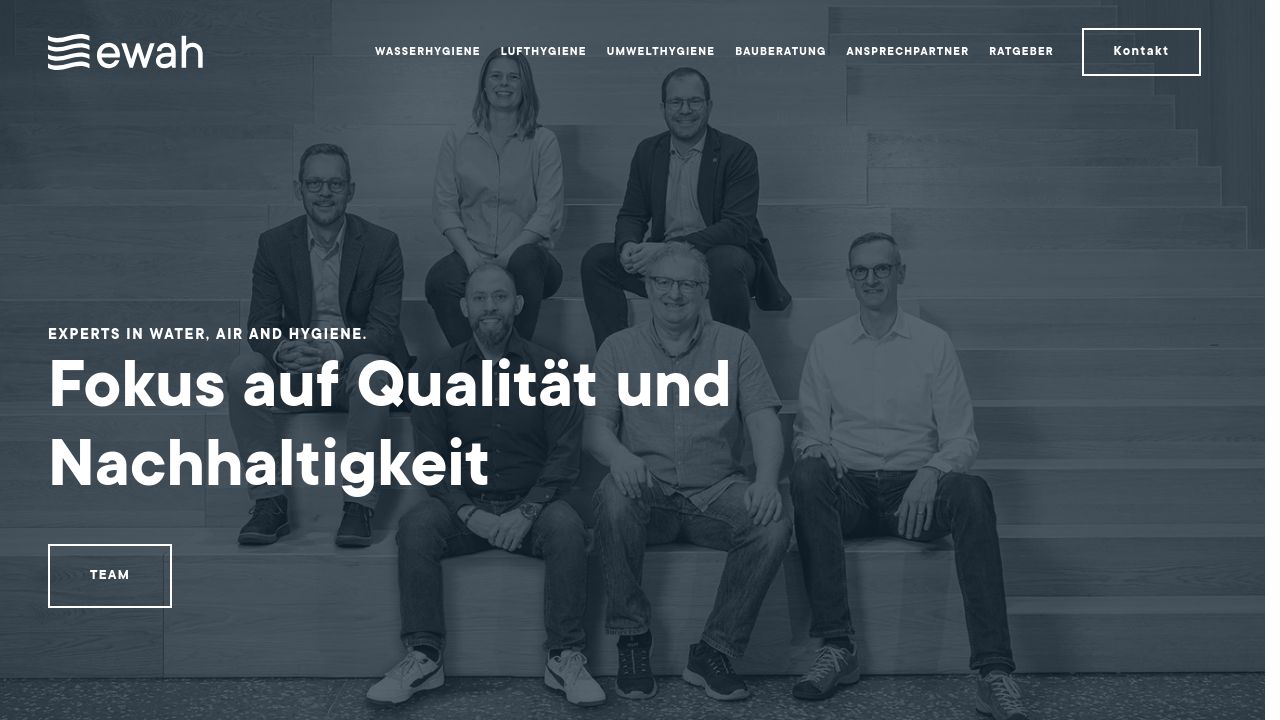
What fonts does Ewah use?
ewah.ch showcases a distinctive visual identity through its choice of fonts, including Raleway, TTCommonsClassic, and the custom swiper-icons. These fonts reflect the brand's commitment to specialized knowledge and tailored solutions in hygiene and sustainable construction concepts. By utilizing Raleway's clean lines and the geometric structure of TTCommonsClassic, ewah AG effectively communicates clarity and reliability to its audience, enhancing their engagement and trust.
What fonts are used on ewah.ch?
ewah.ch primarily uses swiper-icons, Raleway, and TTCommonsClassic. Each of these fonts contributes to the site's clear and professional aesthetic.
How does Raleway compare to other sans-serif fonts?
Raleway stands out with its elegant letterforms and versatility, making it suitable for both headings and body text, unlike some other sans-serifs that may lack distinctive character.
What styles and weights are available for the fonts on ewah.ch?
ewah.ch utilizes Raleway, TTCommonsClassic, and swiper-icons all in weight 400. This weight offers a balanced appearance that maintains readability across various screen sizes.